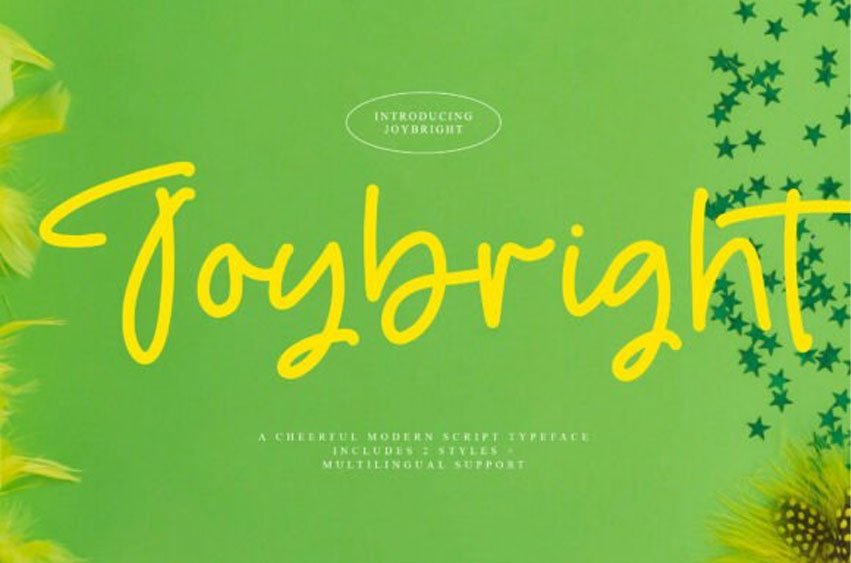
Joybright Font
Joybright Font is a striking script from Operatype, perfect for any project like: logos, branding projects, homewares designs, product packaging, mugs, quotes, posters, shopping bags, t-shirts, covers books, business cards, invitation cards, greeting cards, labels, photography, watermarks, special events and all your other luxury projects that require a premium taste.
It will certainly amaze your readers.